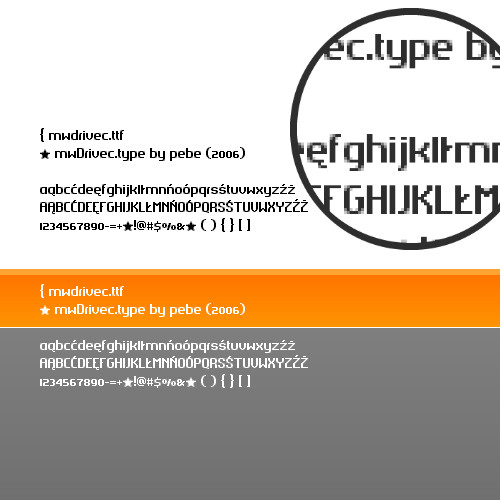
My SmoothPixelFont (hand made anti alias)pebe = farba
Use always at 8px.
no no fajna taka techniczna fonta
Awesome! May I ask how you did the handmade anti-aliasing in your font-program (what program do you use)?
Hello thank u for comment.. i use my own software (cause software for smoothpixelfonts dont exist ;( ) so i need to waste some loooong nights and make my own